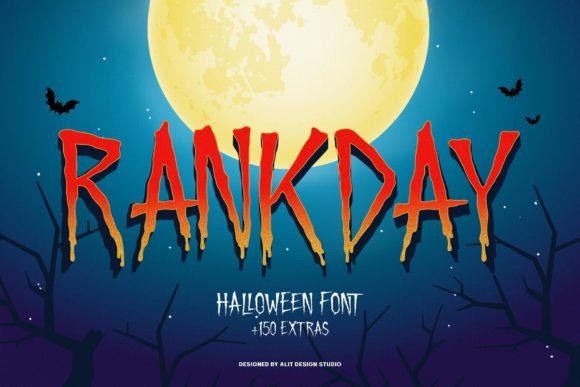
Feast your eyes upon Rankday, the dazzling display font conjured from the cauldron of creativity at Alit Design. This spellbinding typeface casts a haunting charm over your designs, conjuring visions of Halloween and the mystical aura of October and November.
With its dripping blood-like characters, Rankday adds a touch of eerie sophistication to your magazine covers, brochures, flyers, Instagram posts, and Canva designs. Let your imagination run wild as you unleash the power of Rankday to bring your Halloween and dark-themed concepts to life.
Rankday Typeface is more than just a font; it's a portal to a realm of captivating aesthetics. Its PUA encoding grants you effortless access to a vast array of glyphs and swashes, empowering you to weave enchanting tales through visual artistry.
Unleash the mystique, unravel the enigma, and let Rankday cast its spellbinding charm upon your designs. From magazine covers that demand attention to captivating flyers that send shivers down the spine, Rankday is your font of choice for conjuring an atmosphere of mystery and enchantment.